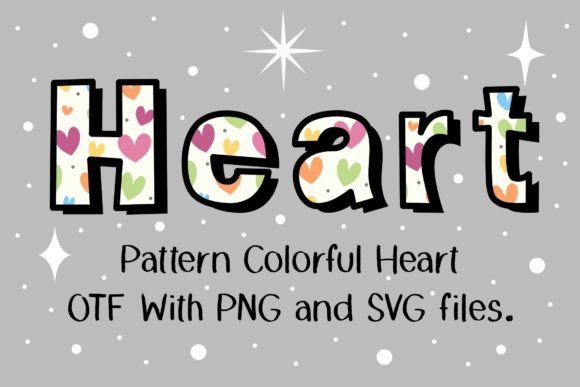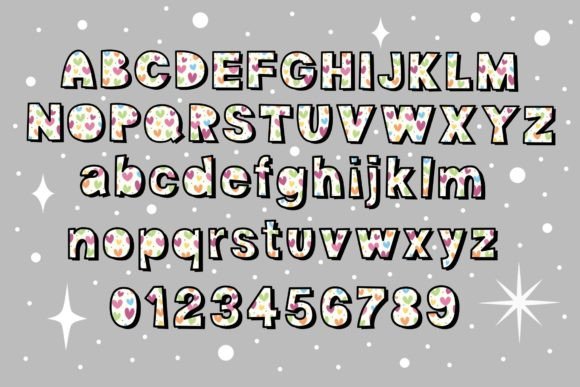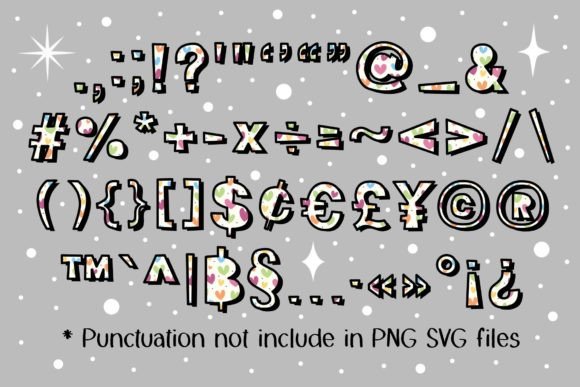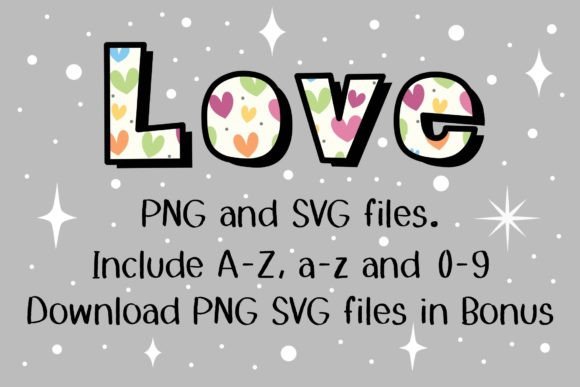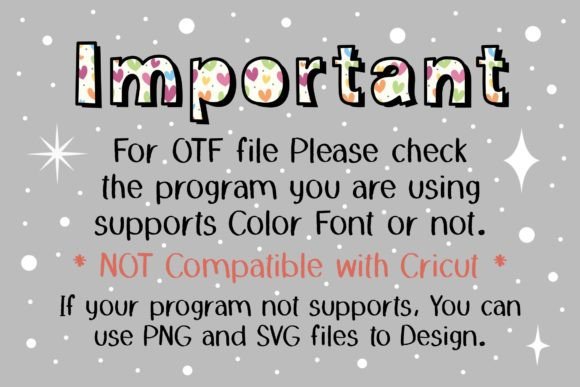
Introducing Colorful Heart Font: The Perfect Valentine’s Day Theme Font for Designers and Crafters
Are you looking for a font that adds a touch of love and playfulness to your designs? Look no further than the Colorful Heart Font! This adorable font is specifically designed with Valentine’s Day in mind, featuring a cute and colorful pattern that’s sure to capture the hearts of your audience. In this article, we’ll explore the features and benefits of the Colorful Heart Font, and how it can be used to elevate your designs, from t-shirts to social media posts and DIY projects.
What is Colorful Heart Font?
Colorful Heart Font is a unique and creative font that’s perfect for designers and crafters looking to add a touch of whimsy to their work. This font features a colorful pattern of hearts, stars, and other cute shapes that are sure to delight. The font is designed to be versatile and can be used for a wide range of projects, from t-shirts and social media posts to crafty DIY projects and more.
Key Features of Colorful Heart Font
- Cute and Colorful Design: The font features a playful and colorful design that’s perfect for Valentine’s Day and other love-themed projects.
- Versatile: The font can be used for a wide range of projects, from t-shirts and social media posts to crafty DIY projects and more.
- High-Quality: The font is high-quality and comes with a range of characters, including letters, numbers, and punctuation marks.
T-Shirts and Apparel
Create custom t-shirts and apparel for Valentine’s Day or any other occasion with the Colorful Heart Font. The font is perfect for creating cute and playful designs that are sure to appeal to a wide range of audiences.
Social Media Posts
Add a touch of love and whimsy to your social media posts with the Colorful Heart Font. Use the font to create eye-catching graphics and posts that are sure to engage your followers.
Crafty DIY Projects
The Colorful Heart Font is perfect for crafty DIY projects, such as handmade cards, gift tags, and other paper crafts. Use the font to add a personal touch to your projects and make them extra special.
Benefits of Using Colorful Heart Font
There are many benefits to using the Colorful Heart Font in your designs. Here are a few:
- Unique and Creative: The font is unique and creative, making it perfect for designers and crafters looking to stand out from the crowd.
- Versatile: The font can be used for a wide range of projects, making it a great investment for designers and crafters.
In conclusion, the Colorful Heart Font is a fun and creative font that’s perfect for designers and crafters looking to add a touch of love and whimsy to their designs. With its cute and colorful design, versatility, and ease of use, this font is sure to become a favorite in your design toolkit. So why wait? Download the Colorful Heart Font today and start creating your own unique and eye-catching designs!